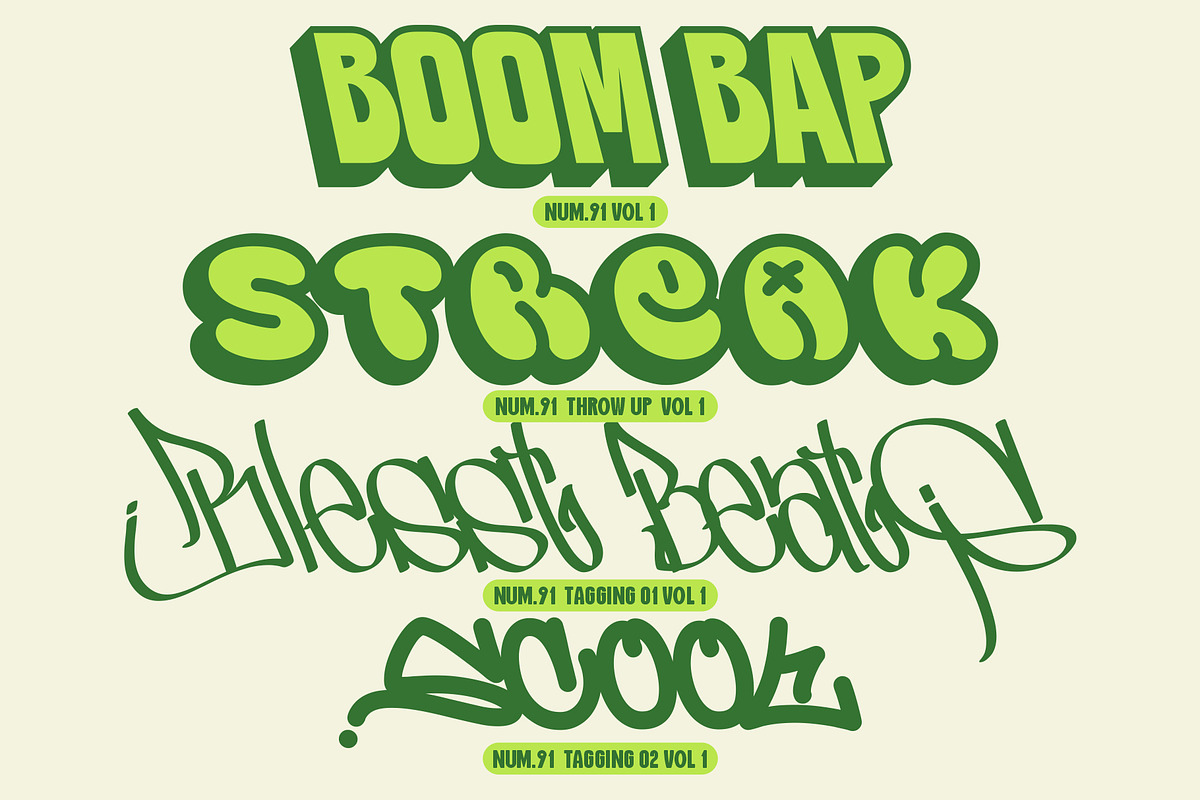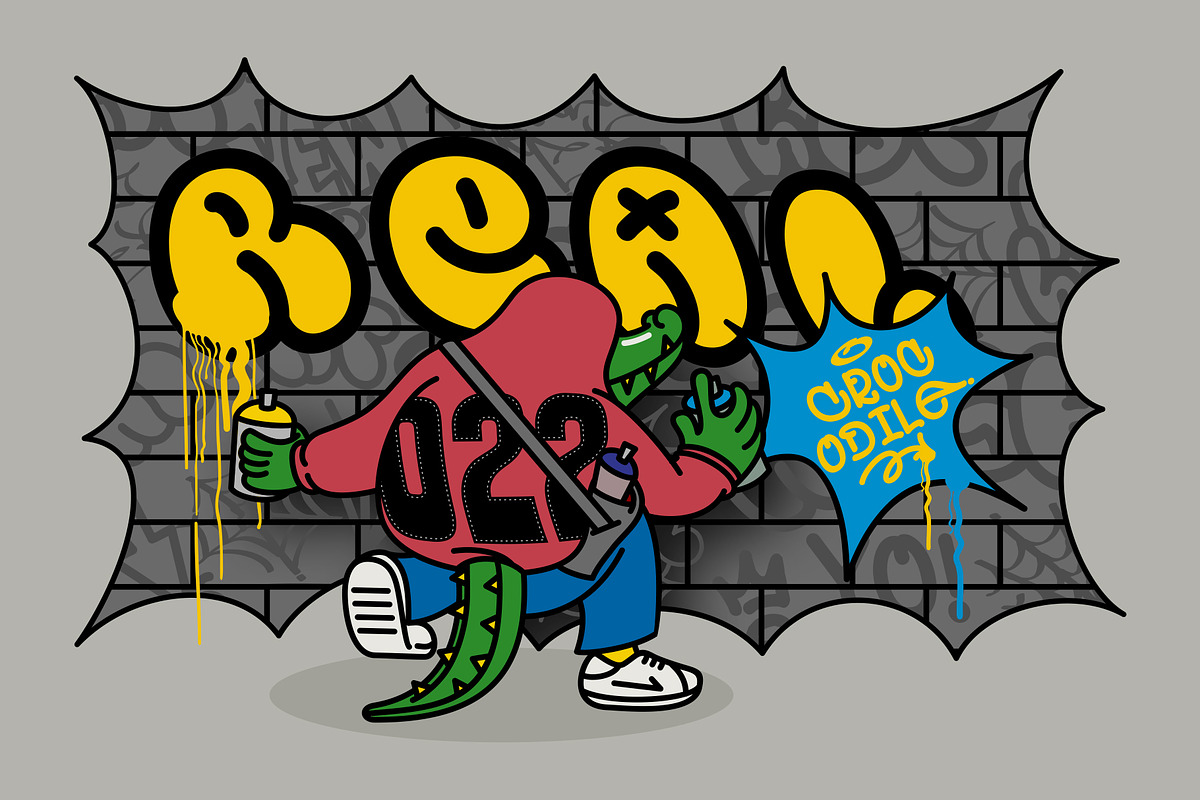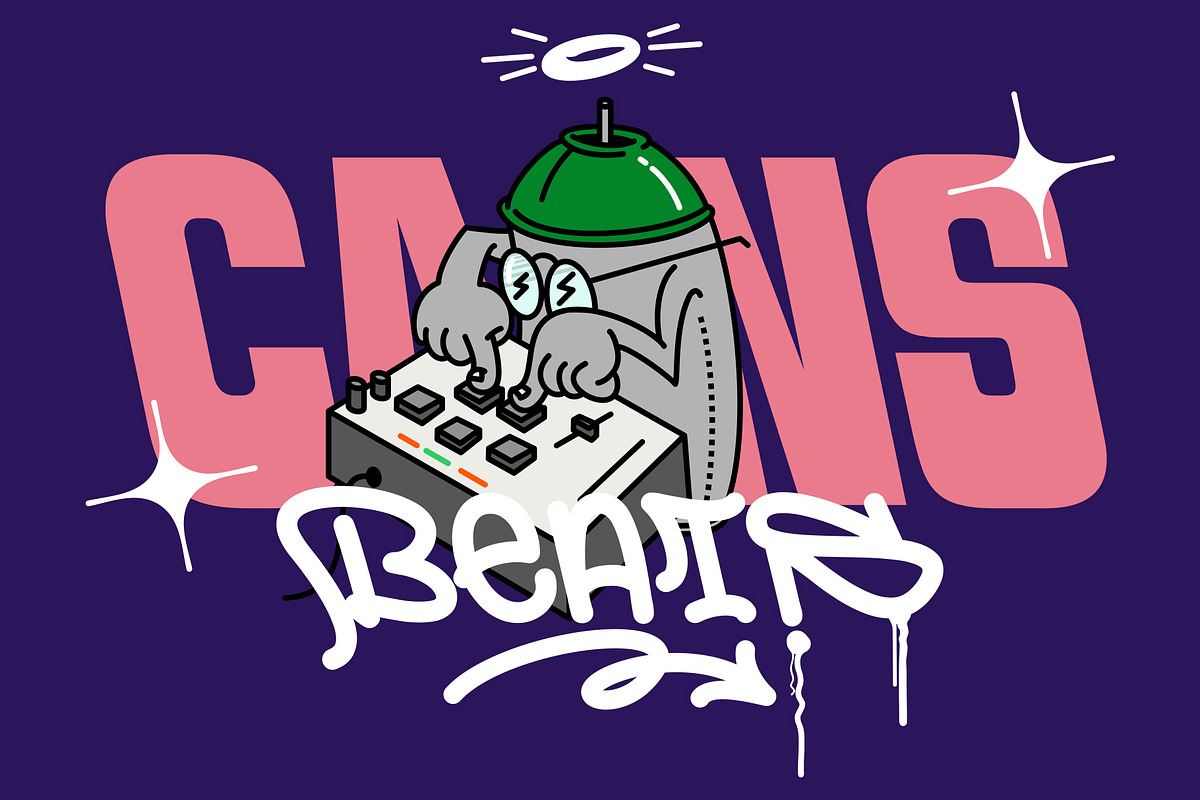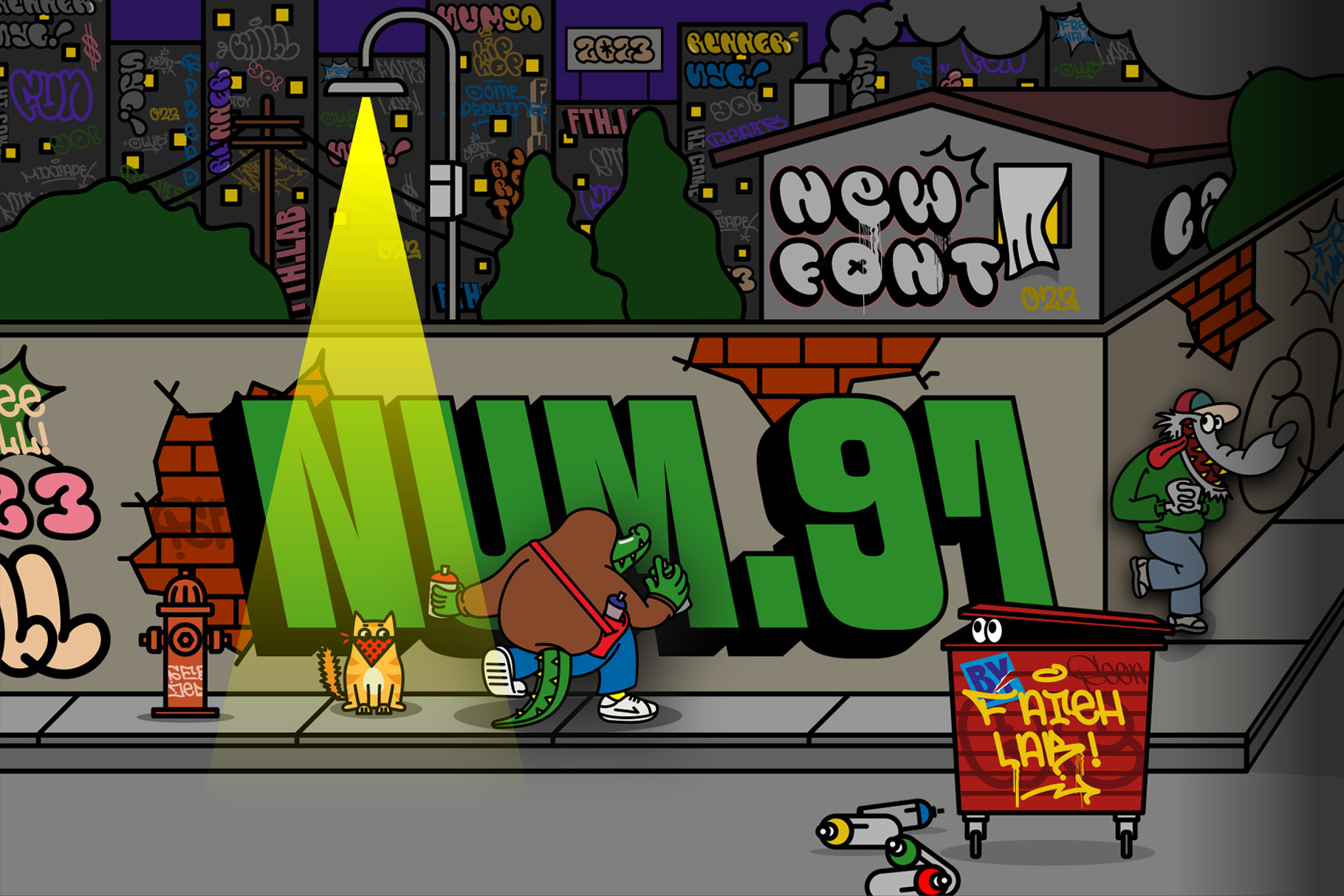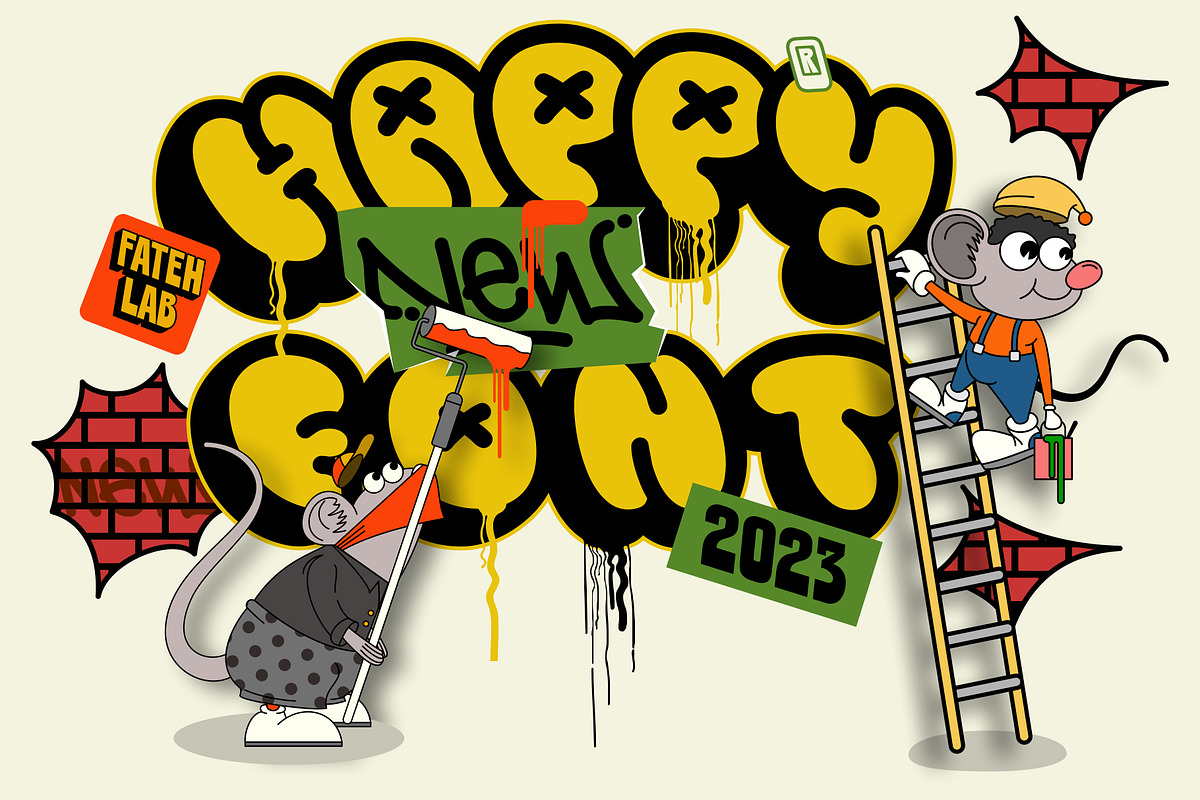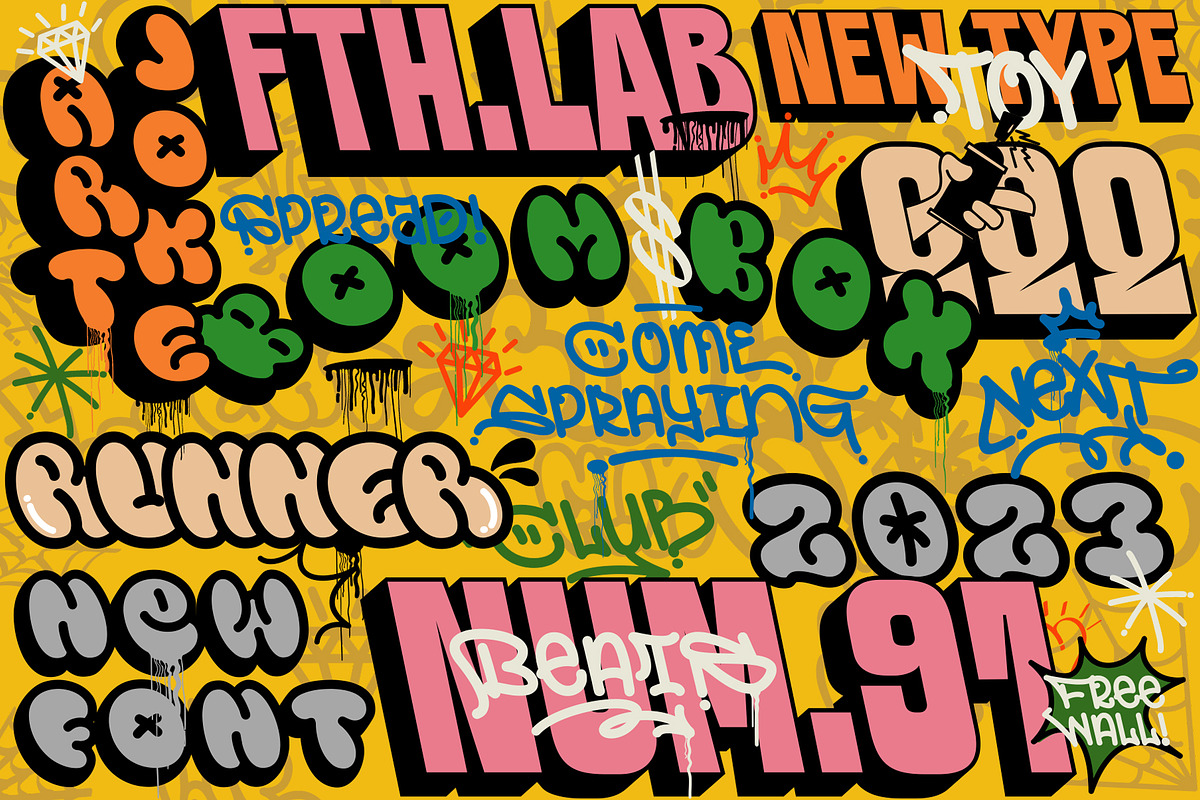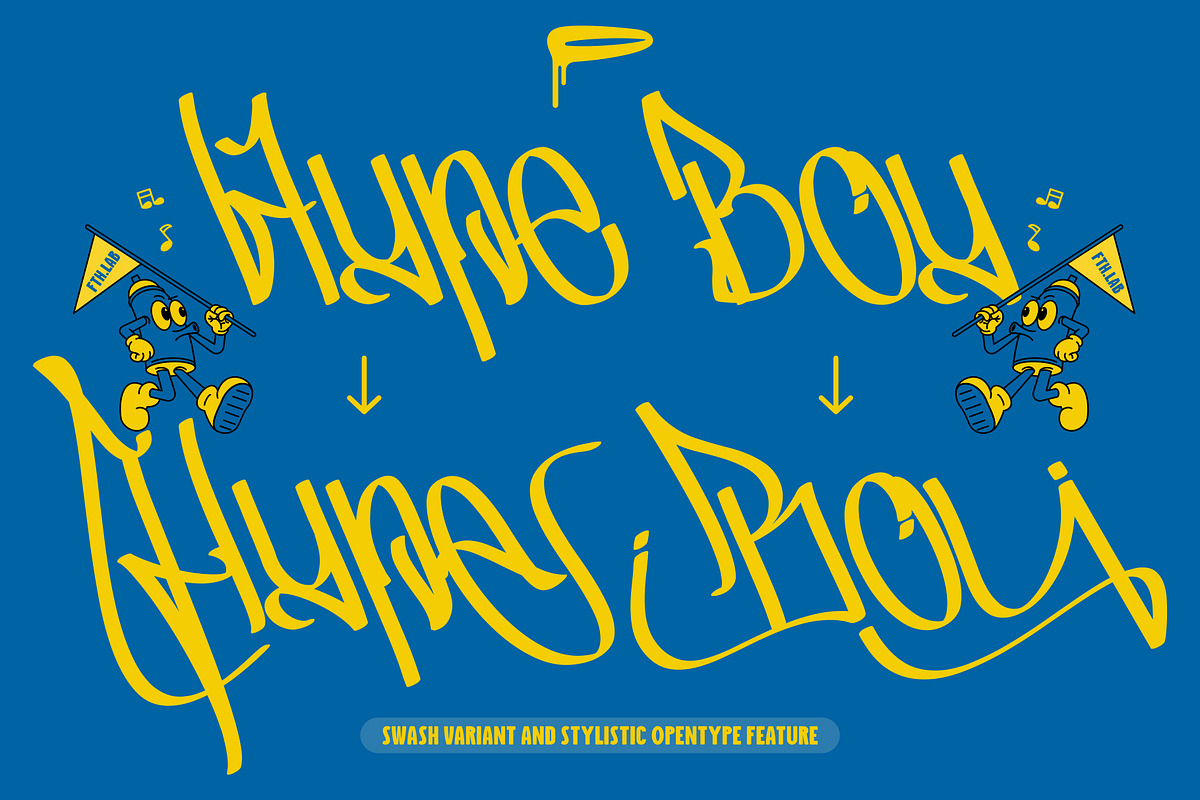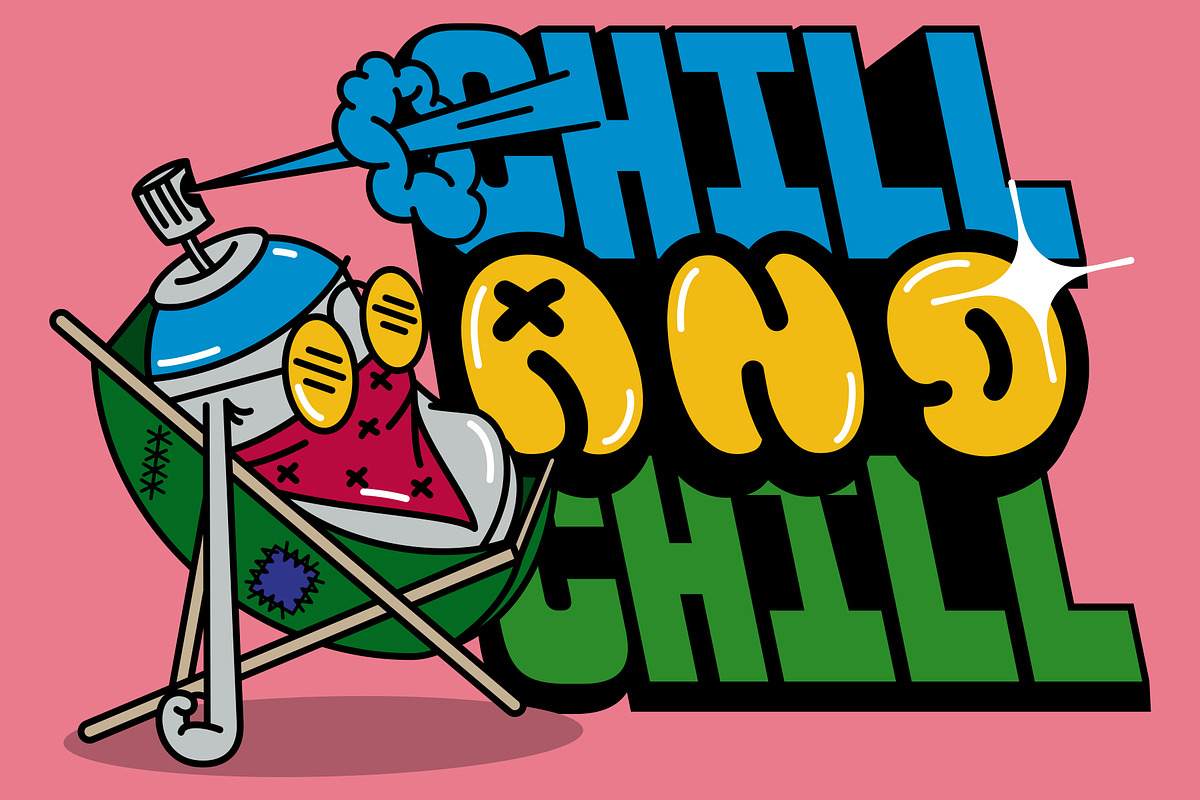
Num.91 | Street Art Font
Num.91 is a strong and elegant street art display typography. Inspired by currently popular street art, this is the answer to the long-awaited need for a street art font. Num.91 is superior and very different from the street art fonts currently circulating. This font really has the soul of street art in it. And another amazing thing, you get bonus vector illustrations in it.
Its weight is superior in posters, social media, headlines, titles, large-format print - and anywhere else you want to get noticed.
- Swash & Stylistic Feature